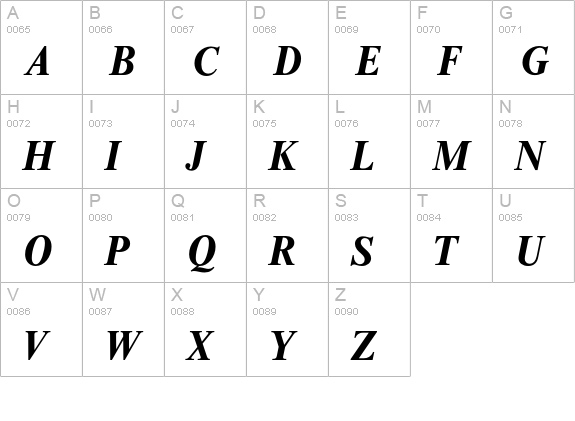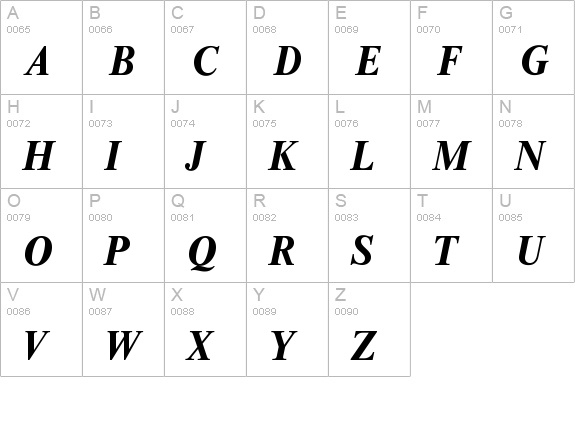
Thames-BoldIta Font Details
Thames-BoldIta font is a stunning and versatile typeface that exudes elegance and sophistication. Its bold and italicized design adds a touch of boldness and flair to any project, making it perfect for eye-catching headlines, titles, and logos. With its clean and legible letterforms, Thames-BoldIta font offers excellent readability, ensuring that your message is conveyed with clarity and impact. Its elegant curves and sharp edges create a harmonious balance between classic and modern design, making it suitable for a wide range of creative projects. One of the best features of Thames-BoldIta font is that it is freely available to download at FontsMarket.com. This means that you can easily access and utilize this exceptional font without any cost. Whether you are a professional designer or a casual user, having access to a high-quality font like Thames-BoldIta can greatly enhance the visual appeal and professionalism of your work. So why wait? Start exploring the endless possibilities of Thames-BoldIta font today and elevate your designs to new heights. With its combination of style, versatility, and the convenience of being freely available, this font is an essential addition to any designer's toolkit. Download Thames-BoldIta font from FontsMarket.com and unleash your creativity with this exceptional typeface.